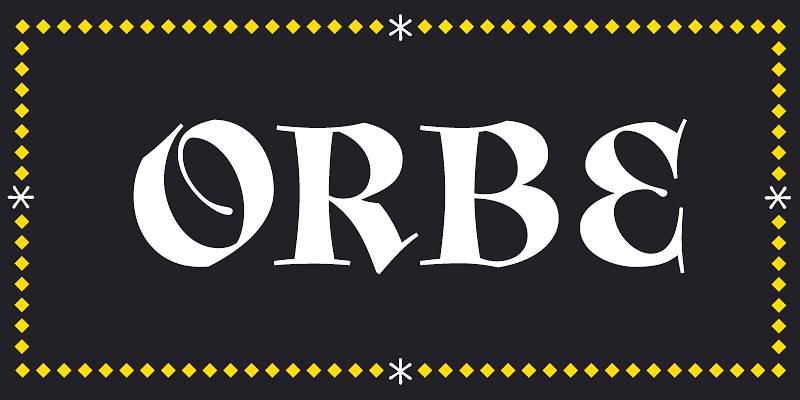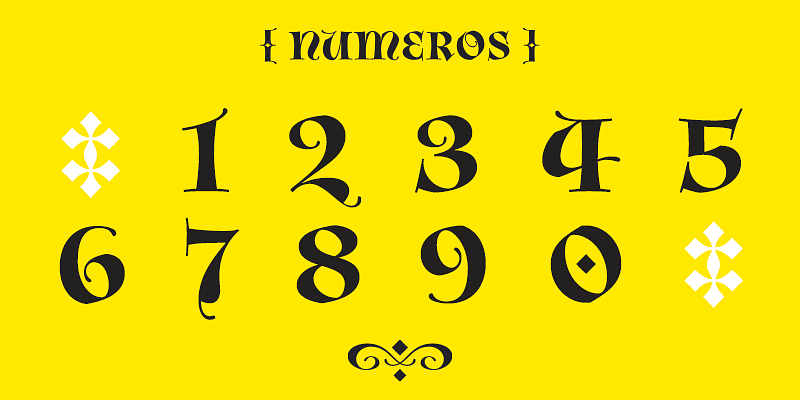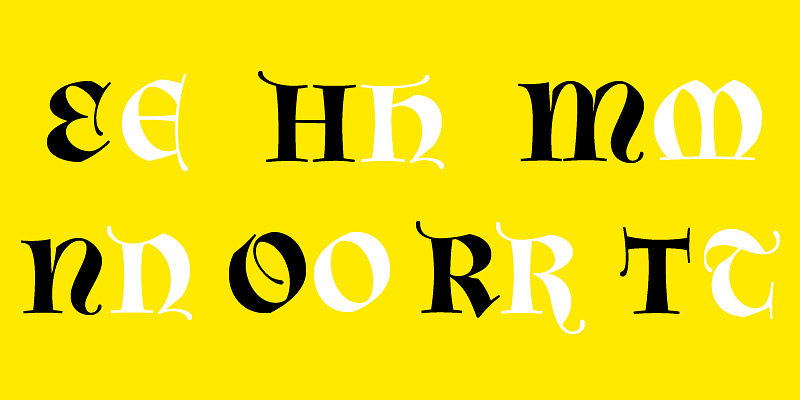
Orbe is a typographic interpretation of the Lombardic majuscules, the chosen form for versals in mediaeval manuscripts, which were an amalgamation of uncials and of roman capitals.
Rui Abreu
Rui Abreu is a Portuguese type and graphic designer. He studied Graphic Design at FBAUP (Faculdade de Belas Artes da Universidade do Porto), where he graduated in 2003.
In parallel with his interactive media designer job, Rui Abreu has been working on commercial fonts since 2006.